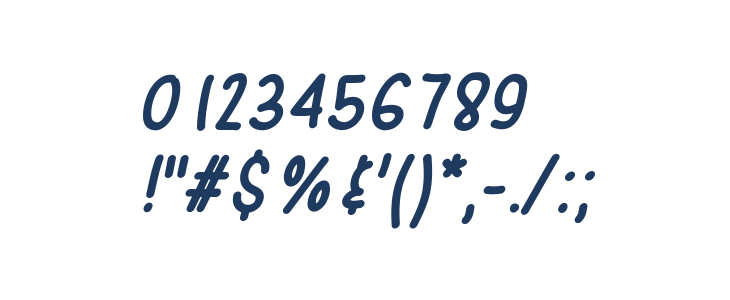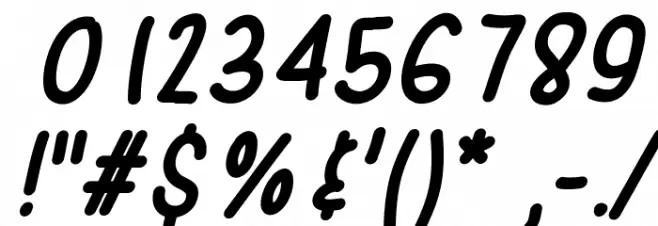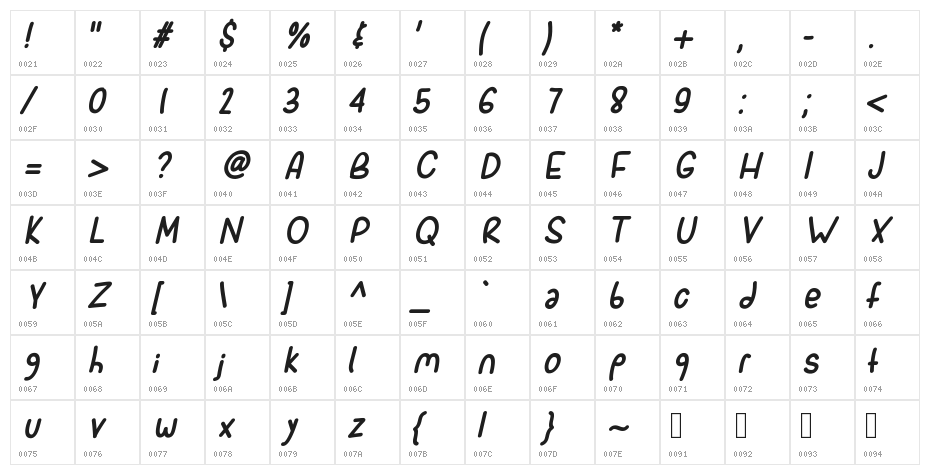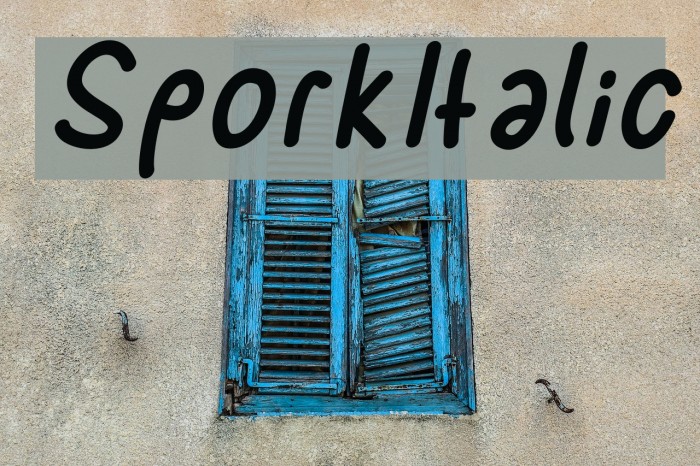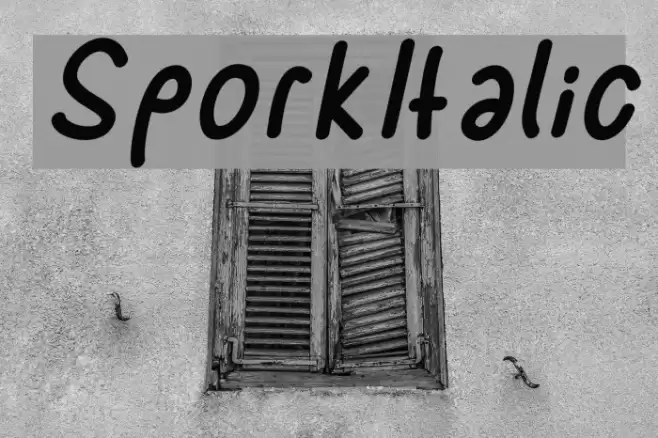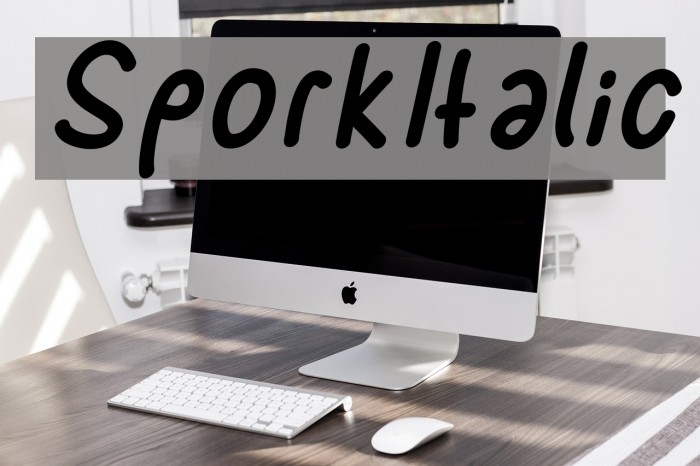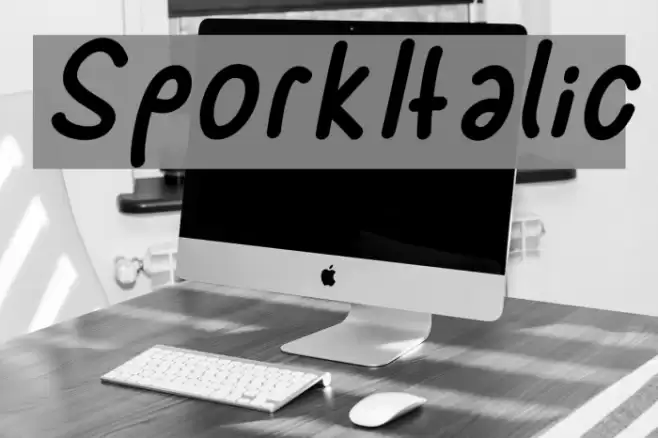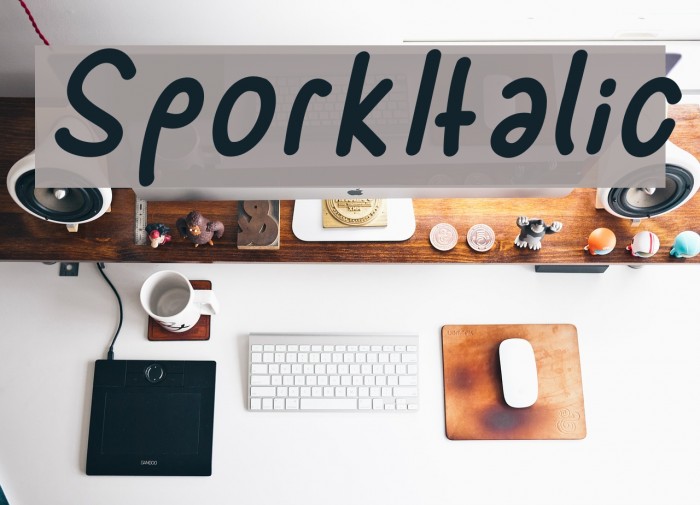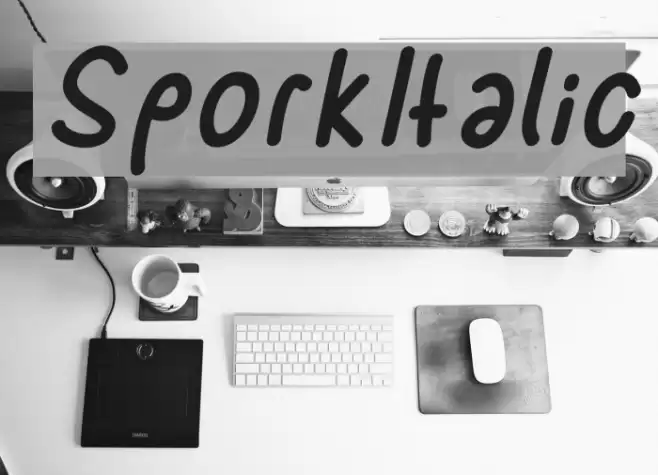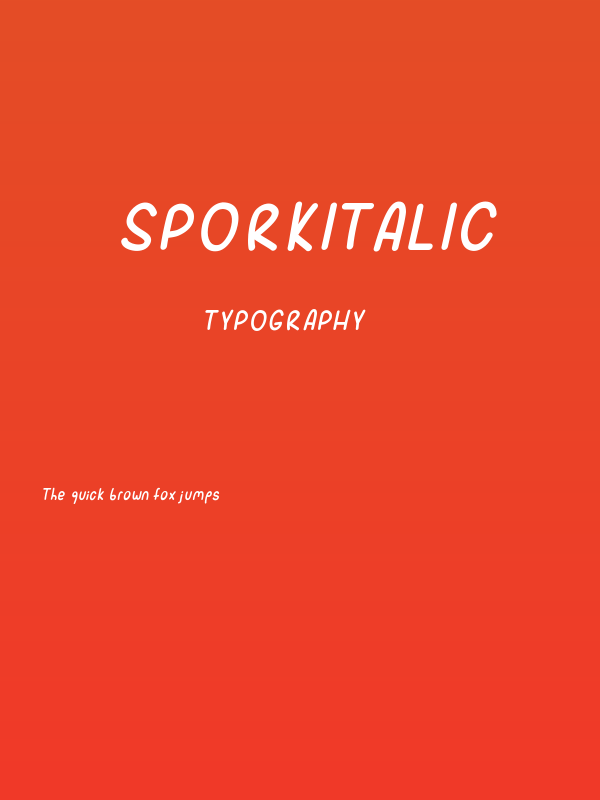
SporkItalic Font
SporkItalic Description
This font features a playful and casual style with a handwritten appearance. The letters are slightly slanted, giving it an italicized look, and the strokes are smooth and rounded, contributing to its friendly and approachable feel. The uppercase and lowercase letters maintain consistent proportions, while the numerals and special characters are clearly defined and easy to read. The overall design is informal yet legible, making it suitable for a variety of creative projects.
| Proposed Projects | Ideal for greeting cards, children's books, informal invitations, and playful branding. |